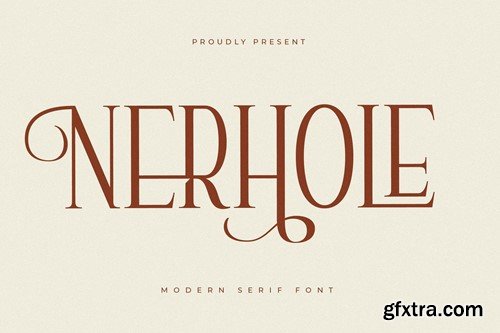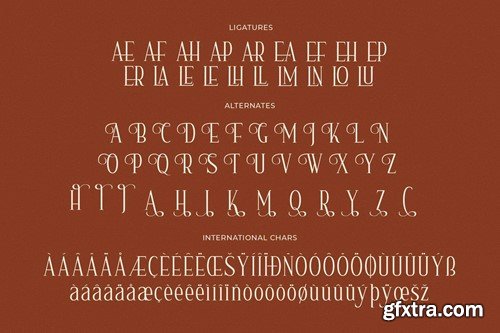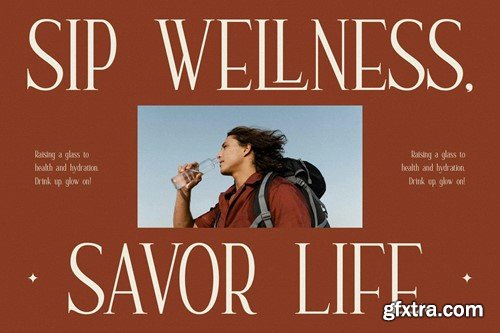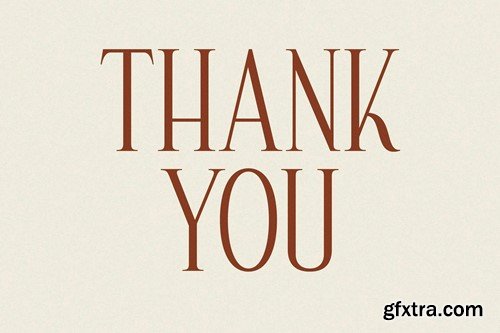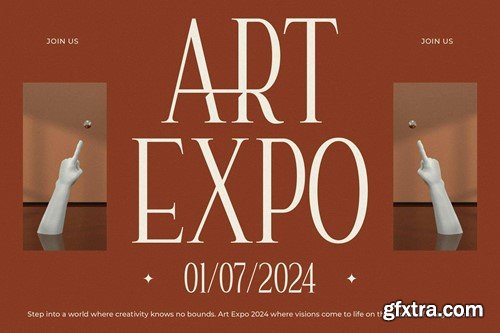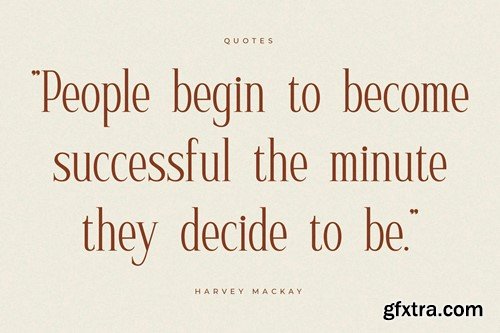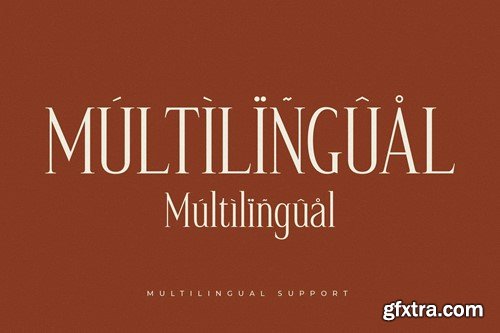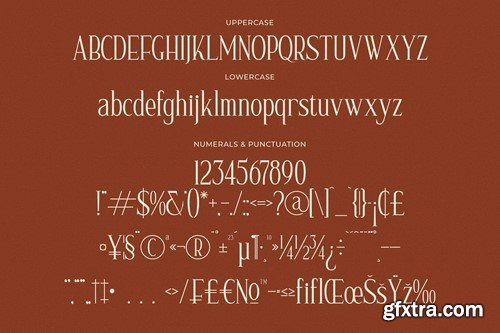
Nerhole Modern Serif Font
Hi ladies & gentlemen, this is one of our fonts suitable to complement your digital and printed creative products. This font is perfect for posters, social media posts, branding, personal projects, etc.